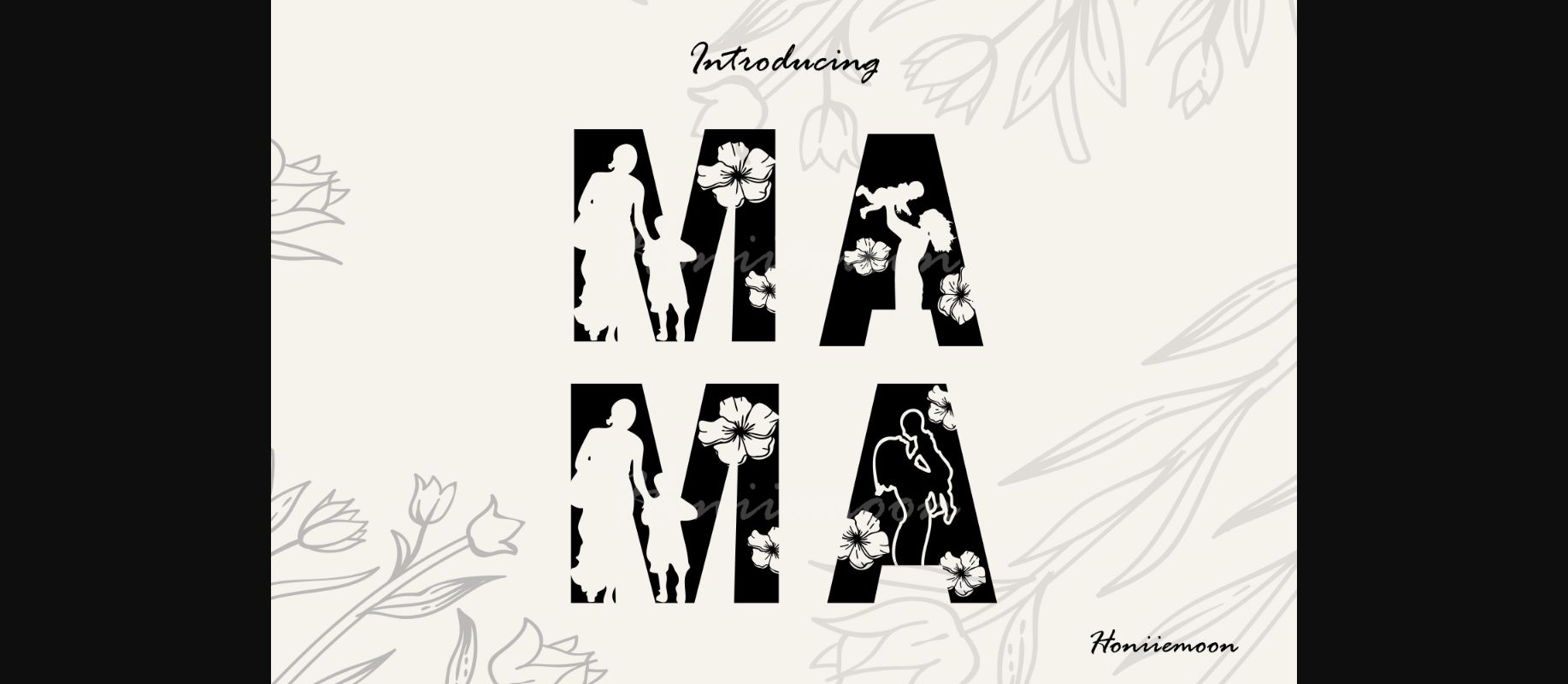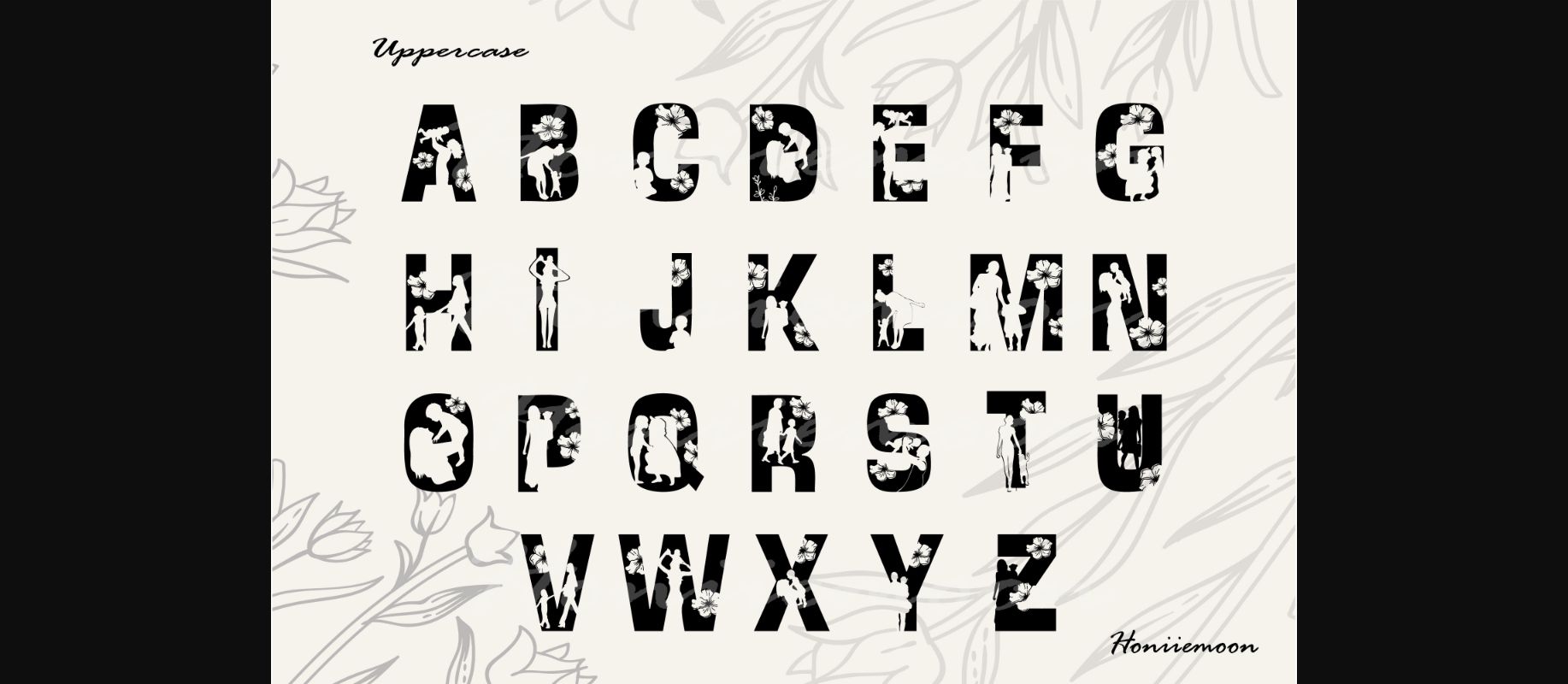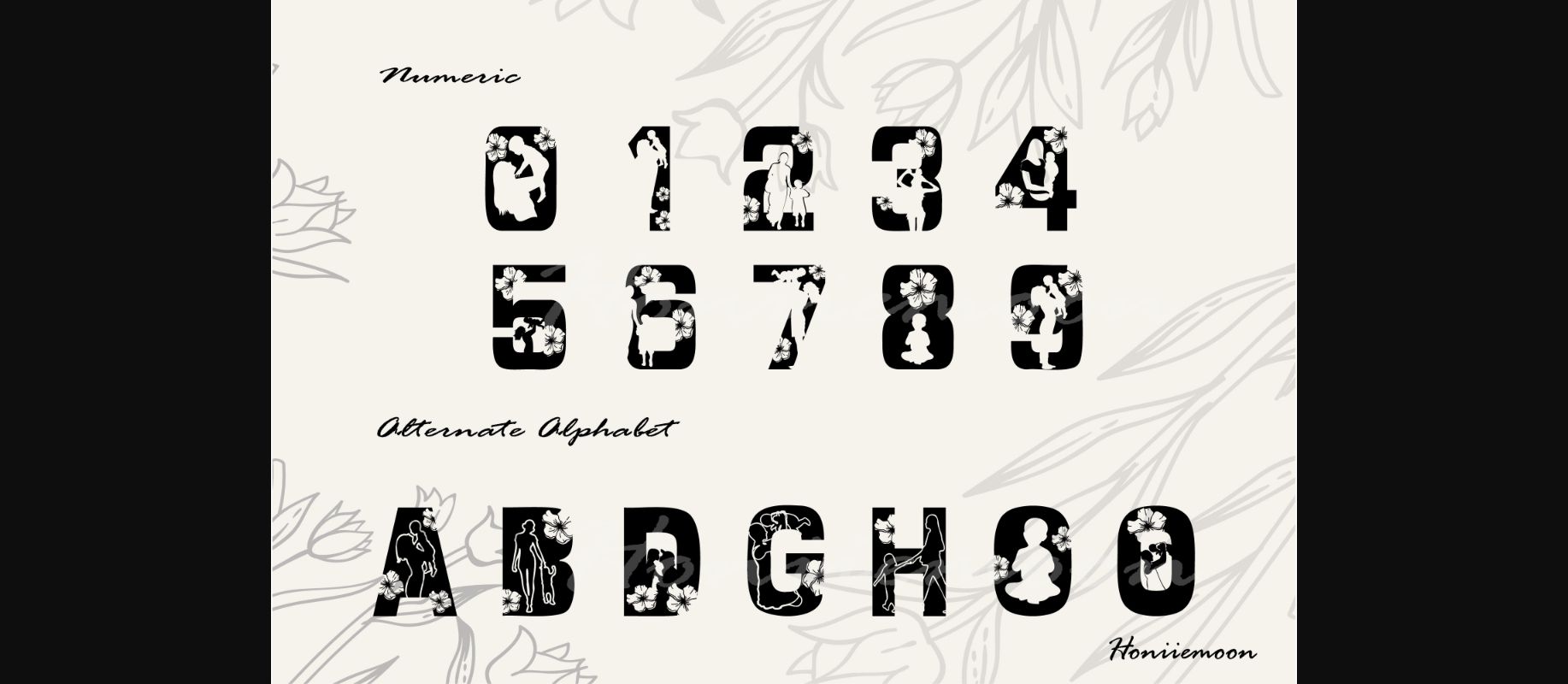
Mama is a delicate and beautiful decorative font. It is perfect for product packaging, branding project, magazine covers, social media, wedding, or just used to express words above the background.